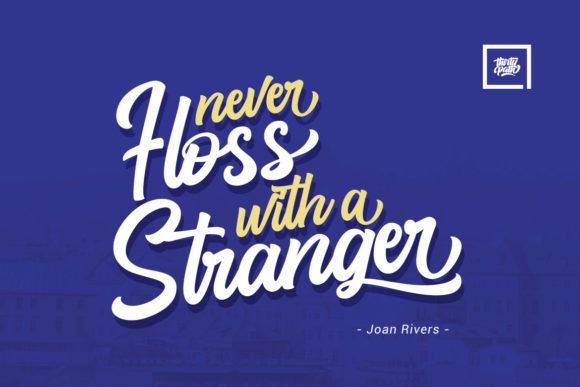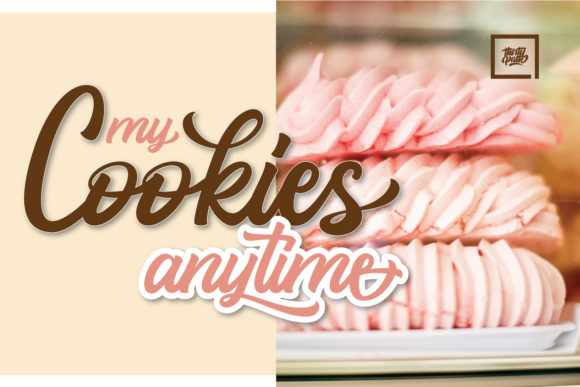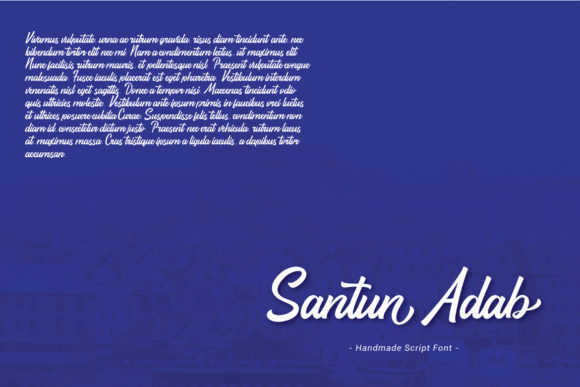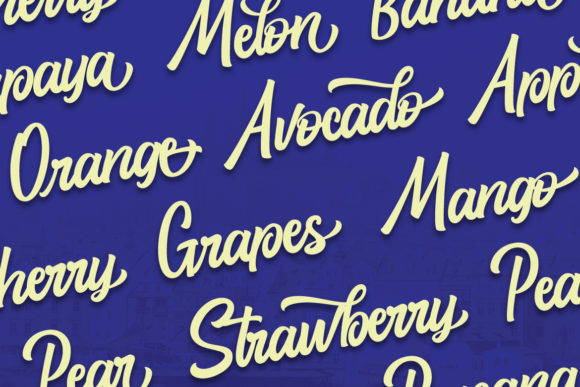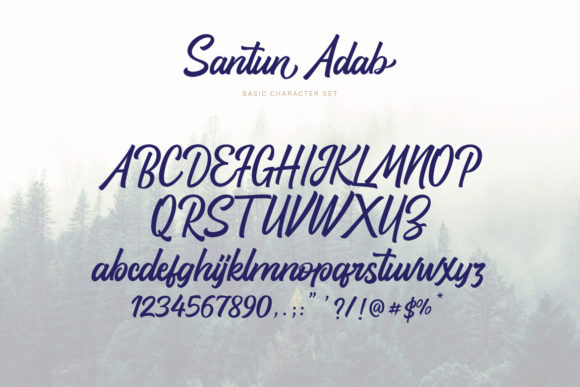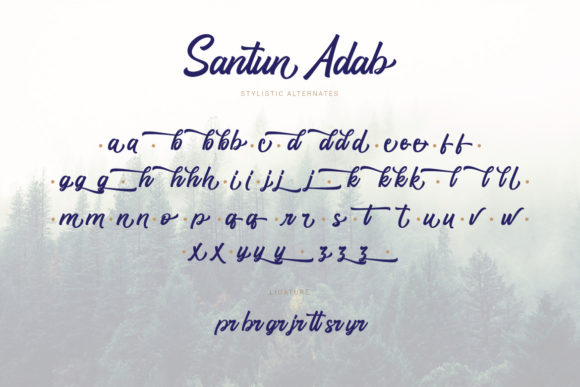
Santun Adab Font
About Santun Adab Font
Santun Adab simplifies elegance into one truly outstanding handwritten font. It features an incredibly classic style, while still keeping a friendly feel. This font is the perfect fit for making original and outstanding designs.